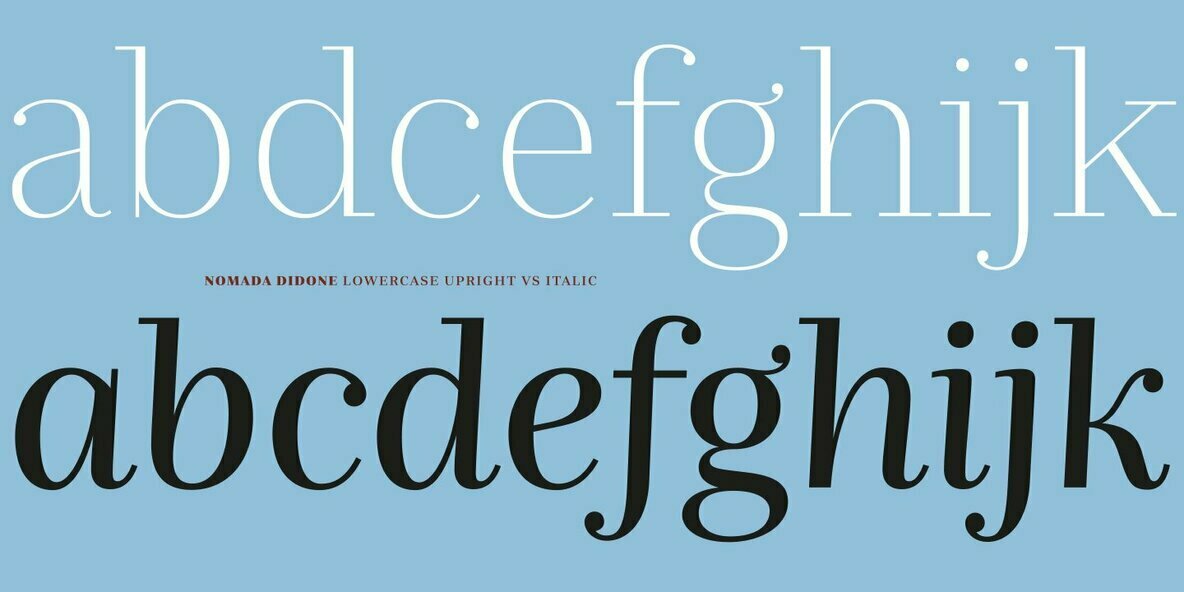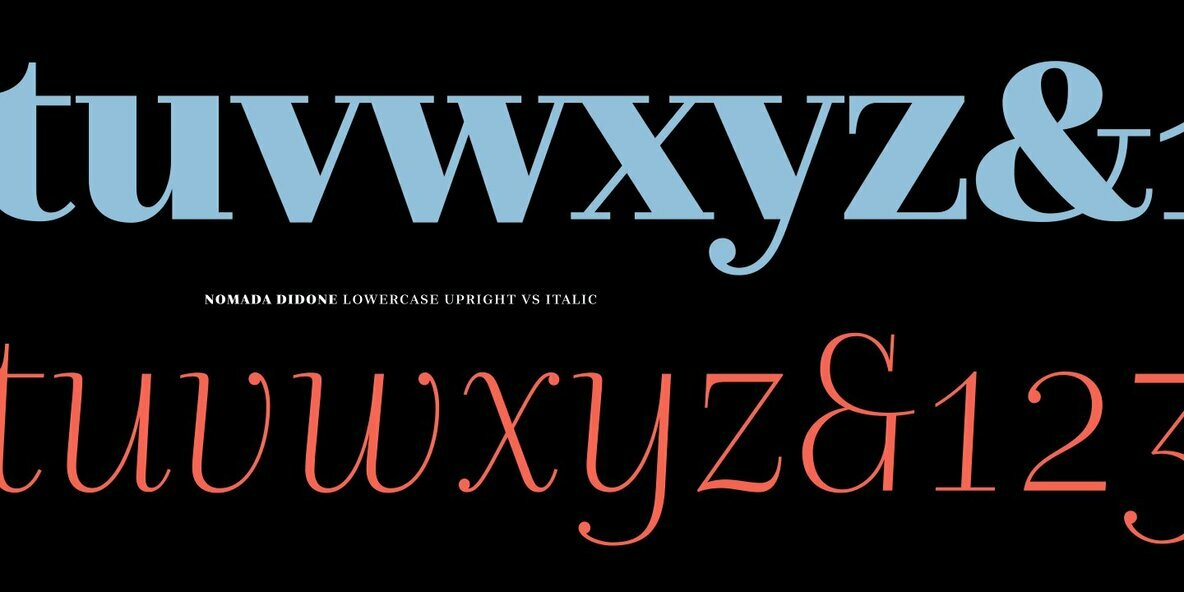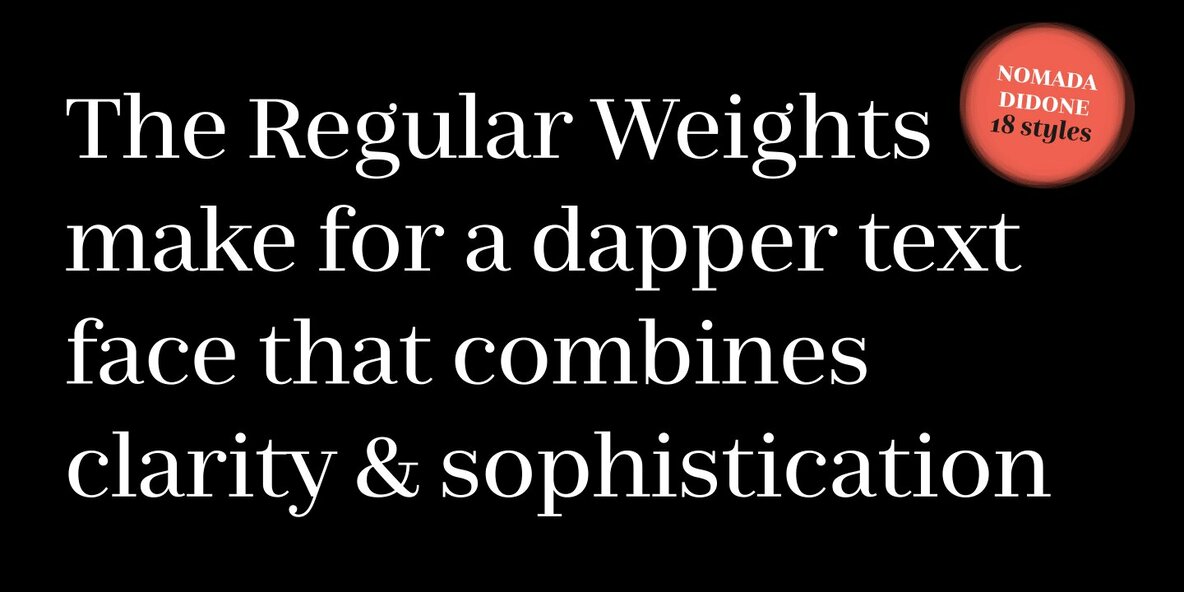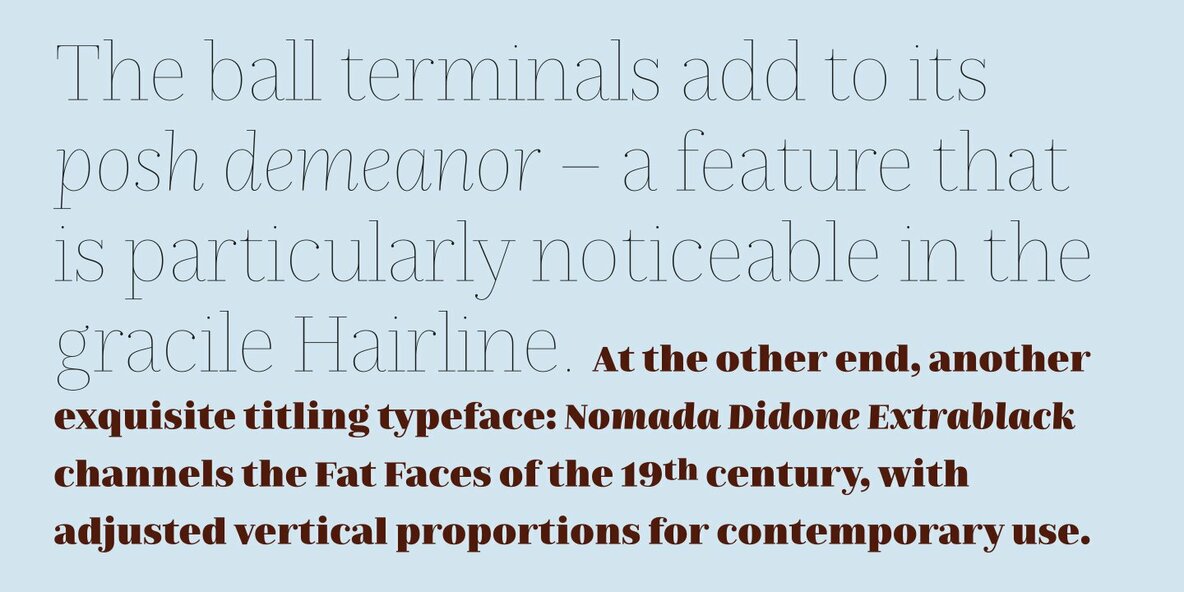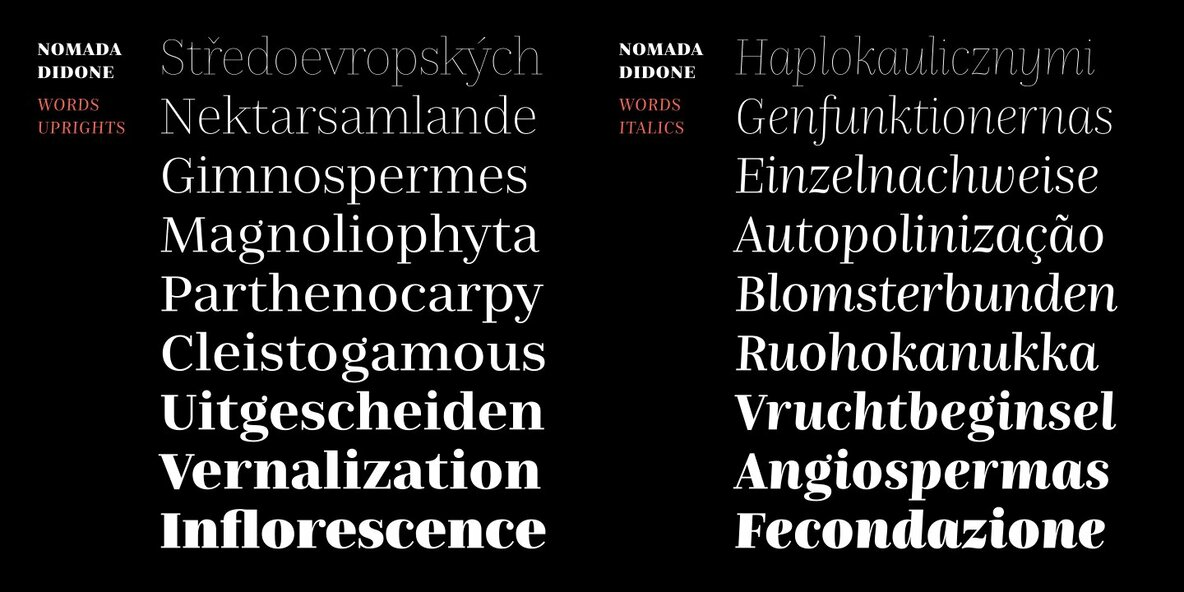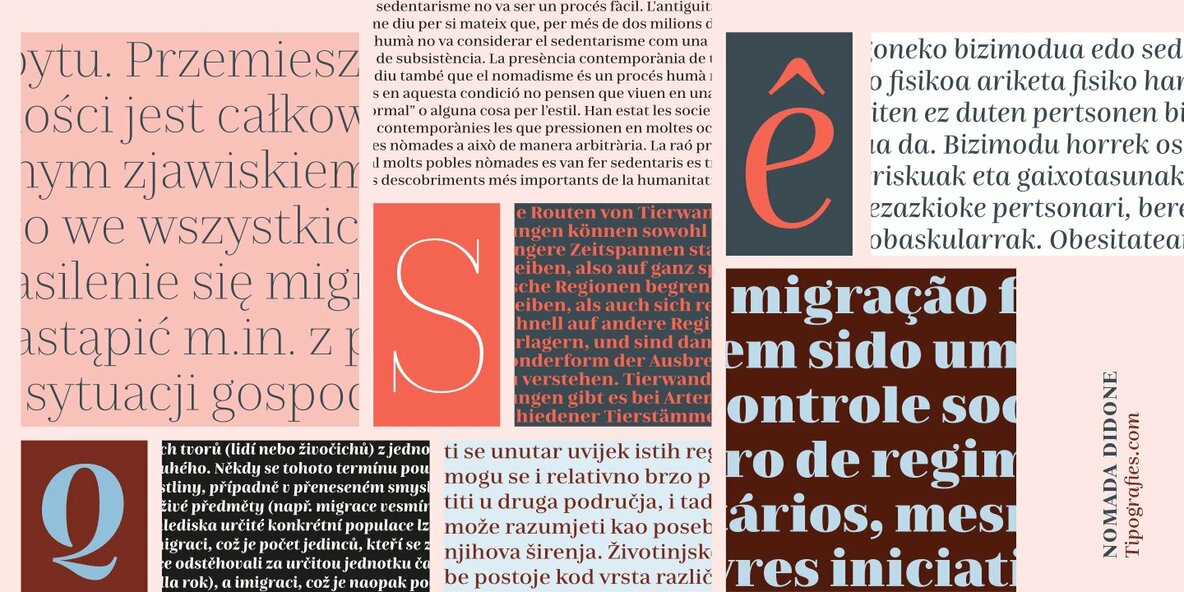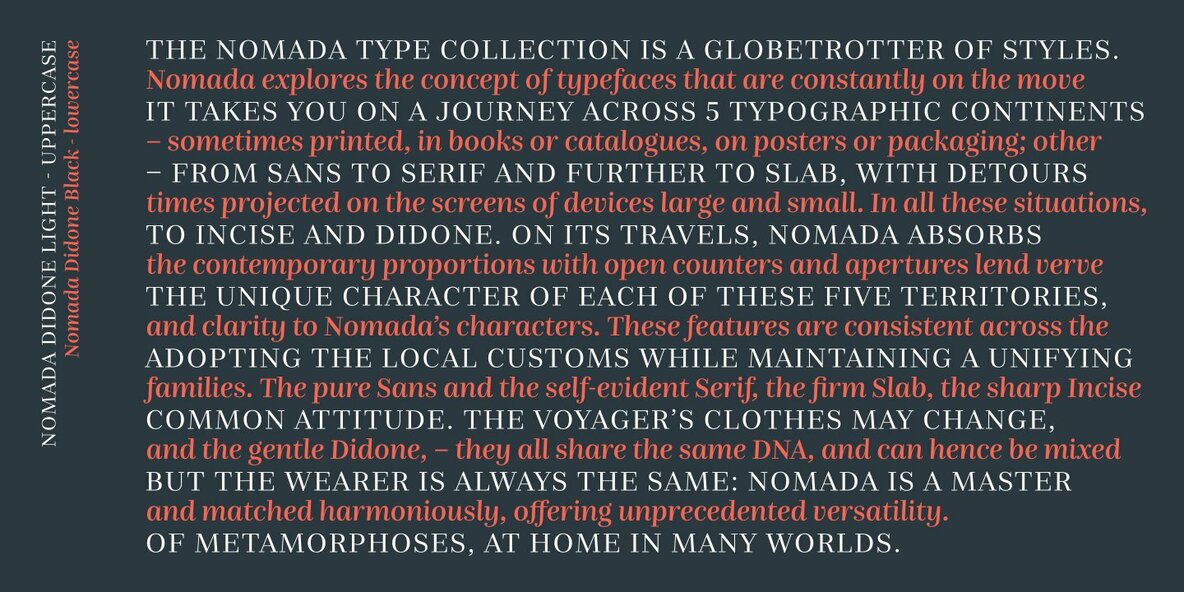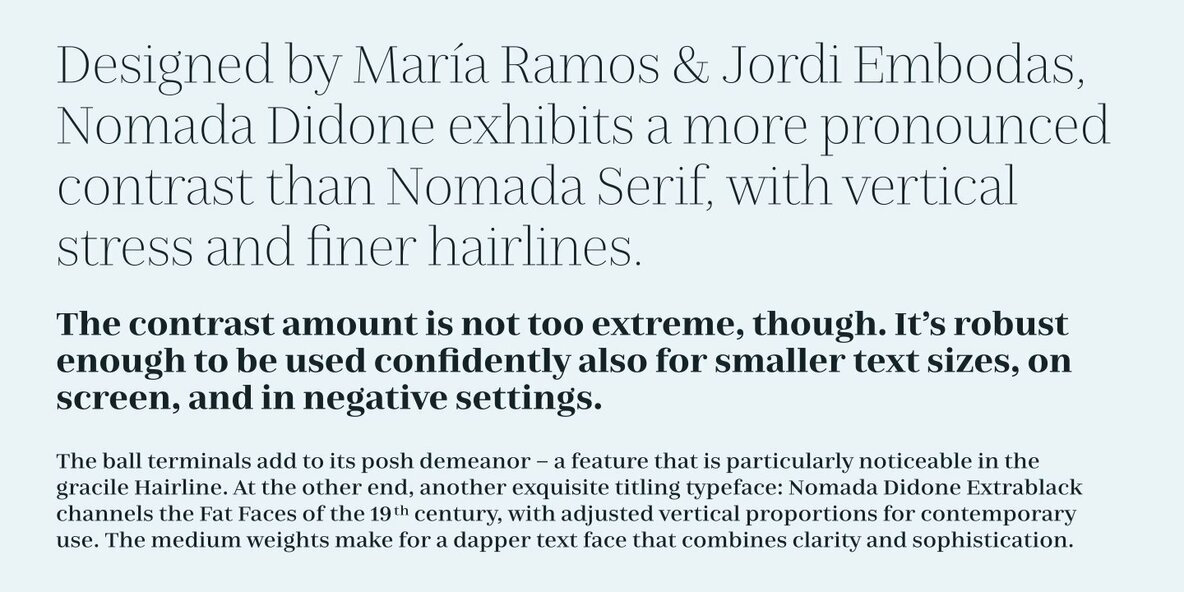
Nomada Didone Font
Nomada Didone exhibits a more pronounced contrast than Nomada Serif, with vertical stress and finer hairlines. The contrast amount is not too extreme, though. It’s robust enough to be used confidently also for smaller text sizes, on screen, and in negative settings. The ball terminals add to its posh demeanor – a feature that is particularly noticeable in the gracile Hairline.
At the other end, another exquisite titling typeface: Nomada Didone Extrablack channels the Fat Faces of the 19th century, with adjusted vertical proportions for contemporary use. The medium weights make for a dapper text face that combines clarity and sophistication.
Designed by María Ramos and Jordi Embodas.